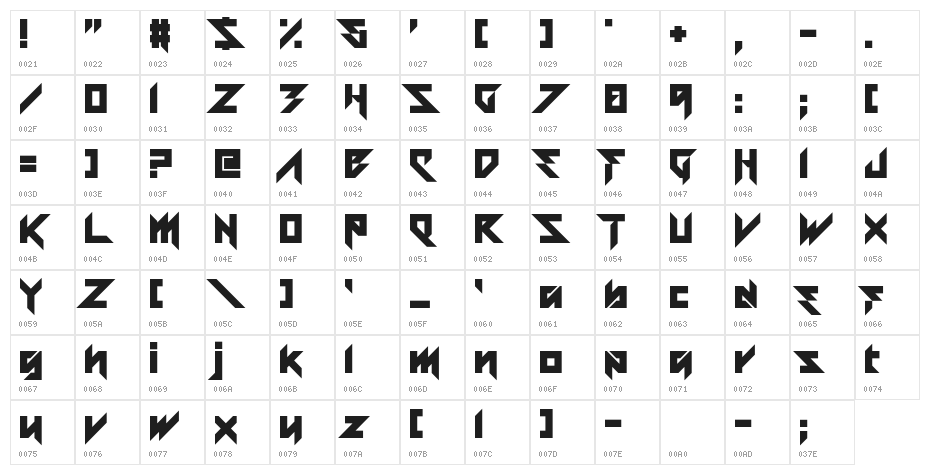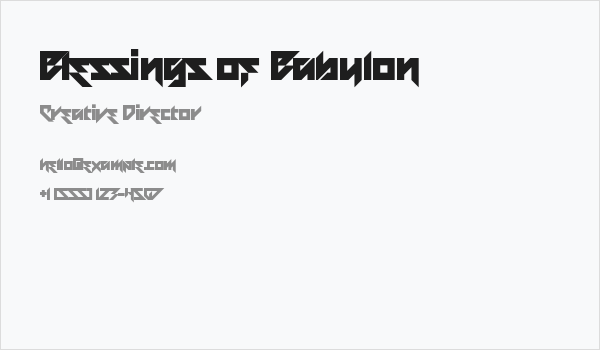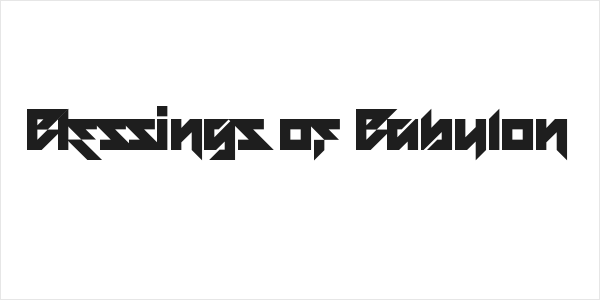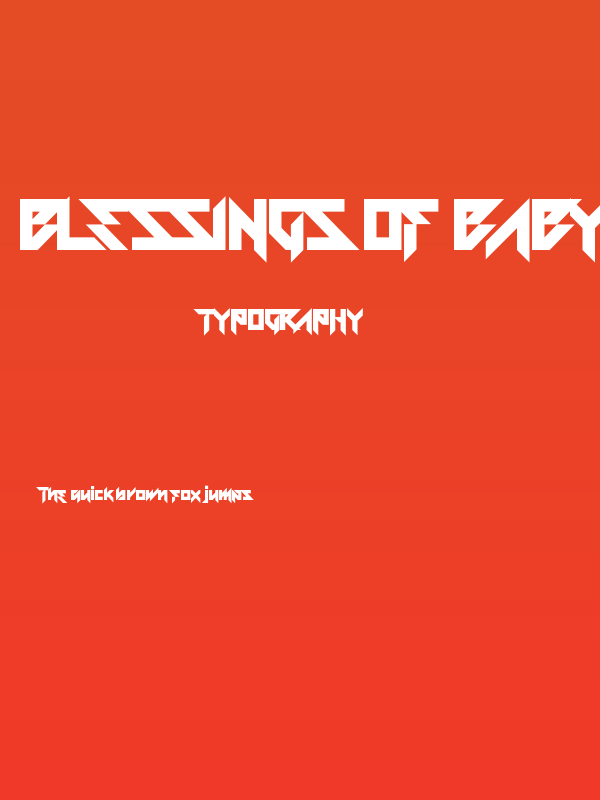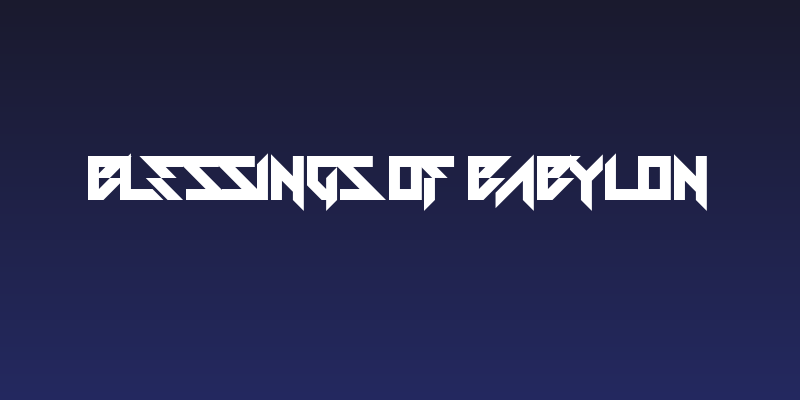
Blessings of Babylon Font
Blessings of Babylon Description
This font features a bold and angular design, characterized by sharp edges and geometric forms. The letters are constructed with a futuristic and aggressive style, making them stand out with a striking visual impact. The uppercase and lowercase letters maintain a consistent angular theme, while the numbers and special characters follow suit with the same boldness. This font's unique style is reminiscent of a modern, digital aesthetic, suitable for projects that require a strong visual presence.
| Proposed Projects | Ideal for video game titles, sci-fi movie posters, technology branding, and edgy graphic designs. |